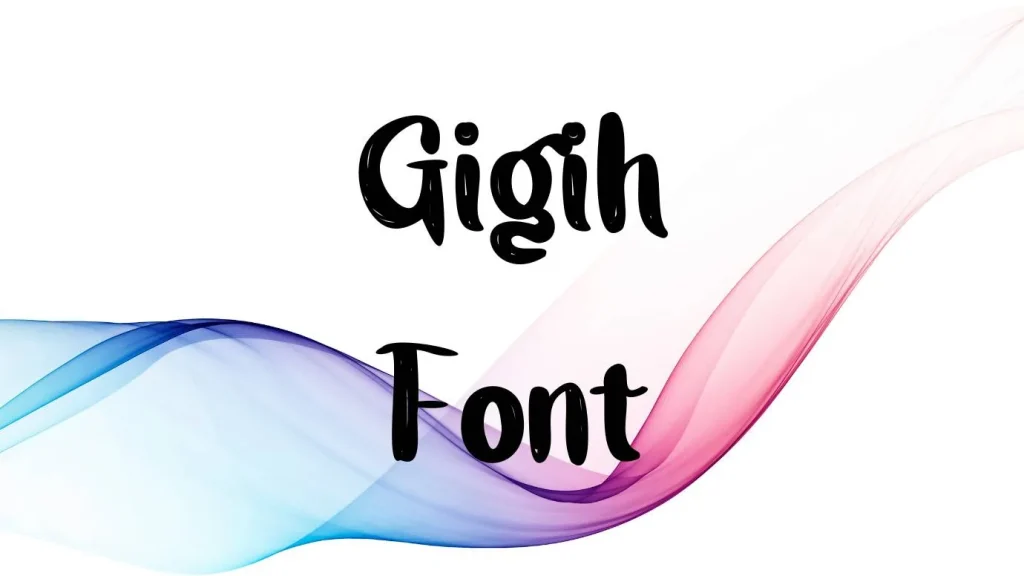
A straightforward and amusing handwritten font called Gigih was created by twinletter. This sleek, contemporary typeface is ideal for any branding, social media, and creative DIY projects.
This typeface is a favorite among designers who want to make graphics for rules because it has already been utilized in movie posters, insignia, and Photoshop creations.
This lovely typeface has fancy-style letters and is appropriate for logo designs. This is a great option for video game titles and logos. With the help of this distinctive typeface, numerous elegant logo designs can be produced.
This font may mix with bosrake handwritten font. You can make fantastical creations by combining this typeface with your favorite font. It gives your project a fascinating end in addition to producing an appealing appearance.
Uppercase and Lowercase Characters
The family includes only one weight. This Font is very diverse and can be used in various design projects by various designers. Down here you are able to see the features of this font which comprises alphabet structure and all that you will need to know.
Where to Use Gigih Font?
All of its users and supporters have access to a generating tool capability for free. This typeface can be used for a variety of display designs in addition to flyers and posters. This typeface is used to write a variety of documents, such as articles, invoices, notes, and assignments.
They work with Photoshop, Canvas, and other design programs. This lovely typeface can be used to create decorative cards, greeting cards, invitation cards, and business cards. This display will show the themes and templates for a website or blog.
| Name | Gigih Font |
| Style | Handwritten |
| Designer | twinletter |
Gigih Font Family Includes
- Gigih Regular